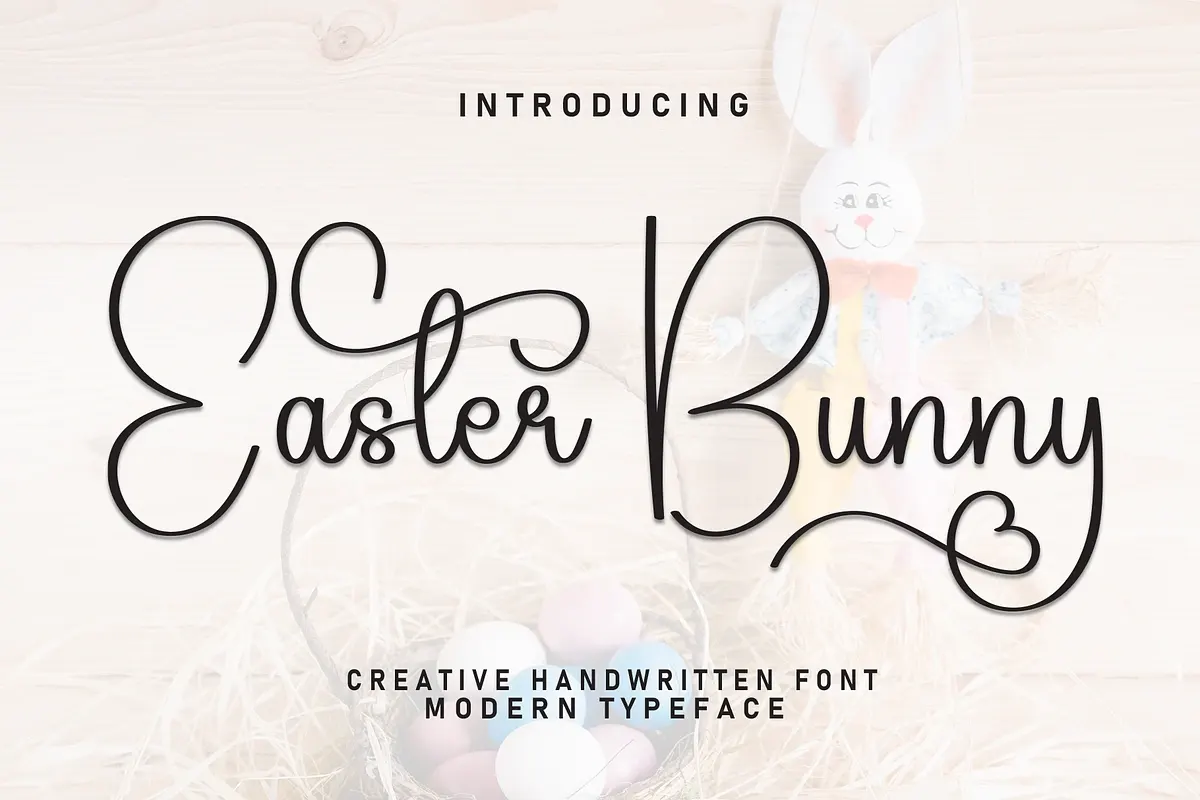
Easter Bunny Script Font Free Download is a delightful and whimsical handwritten typeface that captures the joy and playfulness of springtime celebrations. With its smooth curves, bouncy baseline, and cheerful style, this font is perfect for Easter-themed designs, greeting cards, kids’ crafts, party invitations, and seasonal branding.
Its charming script lettering brings a warm, homemade feel to any project, making it a favorite choice for DIY creatives and designers who want to spread happiness through their visuals. Easter Bunny works beautifully on its own or paired with simple sans-serif fonts for contrast.
Hop into your next project with the sweet and spirited vibe of Easter Bunny!